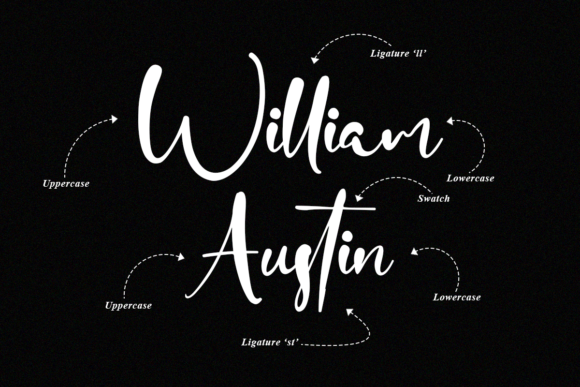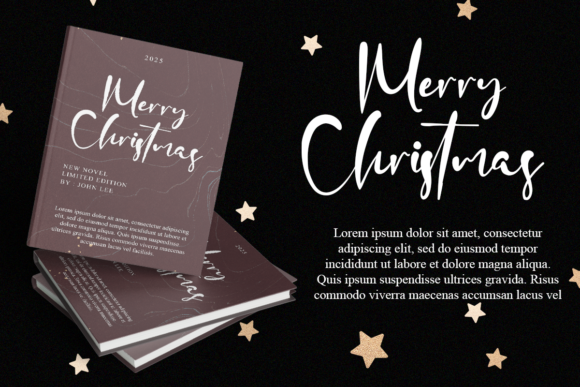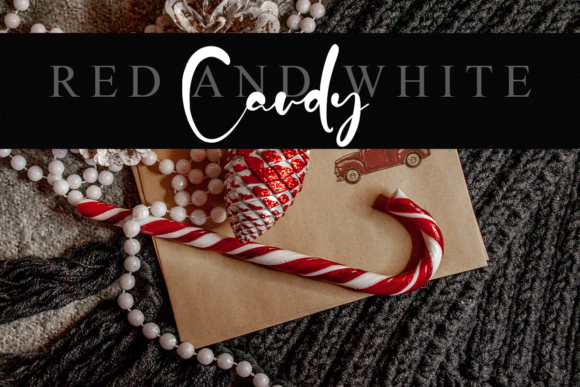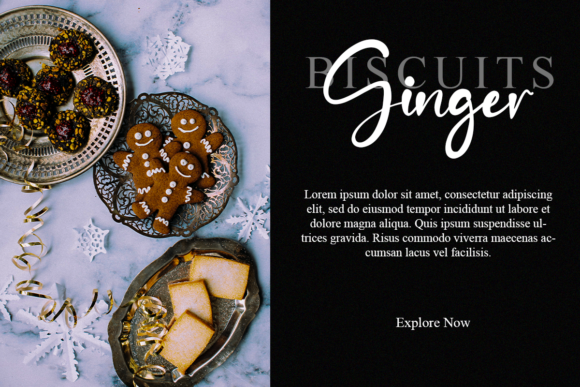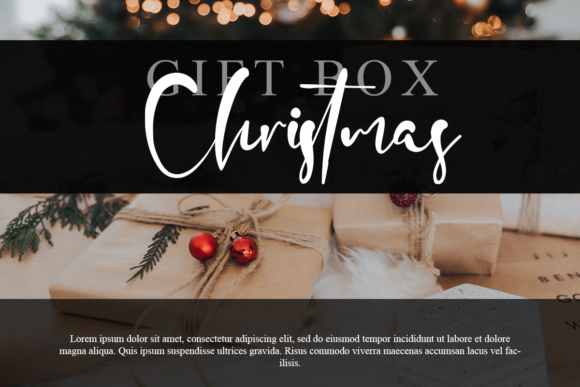
Candy Clause Font: The Sweetest Addition to Your Design Arsenal
Are you on the hunt for a font that adds a touch of whimsy and charm to your designs? Look no further than the Candy Clause font! This lovely and timeless handwritten font is the perfect choice for creating eye-catching logos, branding, and quotes that will leave a lasting impression on your audience.
The Unique Charm of Candy Clause
What sets Candy Clause apart from other fonts is its unique and beautiful touch. Every letter has been carefully crafted to bring a sense of personality and flair to your designs. The font’s handwritten nature gives it a warm and inviting feel, making it perfect for designs that require a personal touch.
Candy Clause is a versatile font that can be used in a wide range of design applications. Whether you’re a designer looking to create a stunning logo, a crafter working on a DIY project, or a social media influencer looking to elevate your brand, this font is sure to impress. Its elegant and cursive script makes it perfect for:
- Logos and branding: Create a lasting impression with a custom logo that showcases your brand’s personality.
- Quotes and posters: Add a touch of elegance and sophistication to your quotes and posters.
- DIY projects: Bring a personal touch to your craft projects, such as handmade cards, gift tags, and scrapbooking.
- Social media graphics: Elevate your social media presence with eye-catching graphics that feature the Candy Clause font.
Why Designers and Crafters Love Candy Clause
So, what makes Candy Clause a favorite among designers and crafters? Here are just a few reasons:
- Unique and beautiful touch: Each letter has been carefully crafted to bring a sense of personality and flair to your designs.
- Timeless appeal: The font’s classic and elegant design ensures that it will remain relevant for years to come.
- Easy to read: Despite its decorative nature, Candy Clause is surprisingly easy to read, making it perfect for designs that require a clear message.
- Versatile: The font can be used in a wide range of design applications, from logos and branding to DIY projects and social media graphics.
Tips for Using Candy Clause in Your Designs
To get the most out of the Candy Clause font, here are a few tips to keep in mind:
- Experiment with colors: The font looks great in a variety of colors, so don’t be afraid to get creative and try out different hues.
- Pair with complementary fonts: Combine Candy Clause with complementary fonts to create a unique and visually appealing design.
- Play with textures and overlays: Add depth and interest to your designs by experimenting with textures and overlays.
- Keep it simple: Don’t overcomplicate your design – sometimes, less is more, and the simplicity of the Candy Clause font is its greatest strength.
In conclusion, the Candy Clause font is a sweet and stylish addition to any design arsenal. Its unique and beautiful touch, timeless appeal, and versatility make it perfect for a wide range of design applications. Whether you’re a designer, crafter, or social media influencer, this font is sure to bring a touch of magic to your creations. So why wait? Download Candy Clause today and start creating your own eye-catching designs!